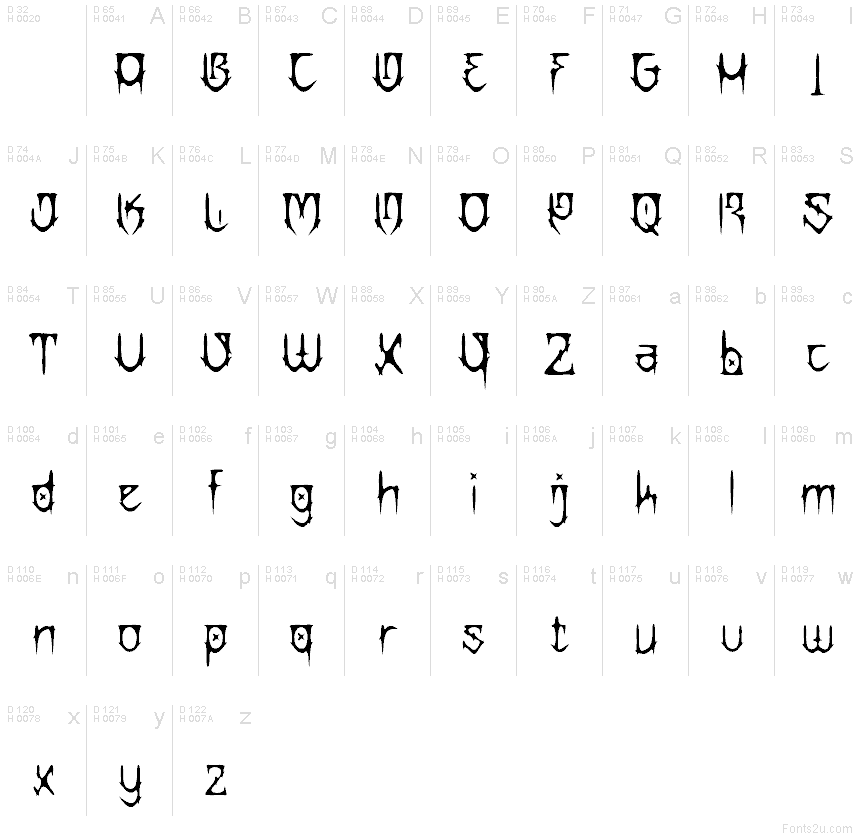
CSDecimaDrawn-Regular Demo
CS Decima Drawn font by Craft Supply Co. is a gothic-ornamented font with an interesting appearance. Designed to steal the attention of any viewer, the characters feature an otherworldly feel mixed with medieval peculiarities. Smooth but still rigid, it includes decorative accents that can make a project visually rich and extravagant.